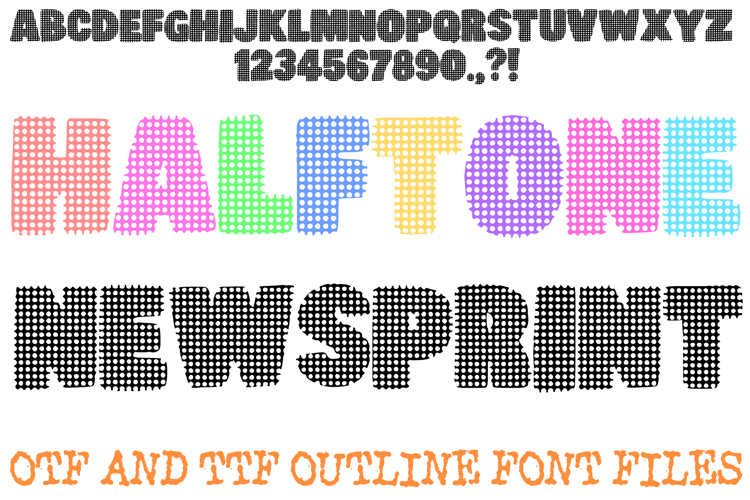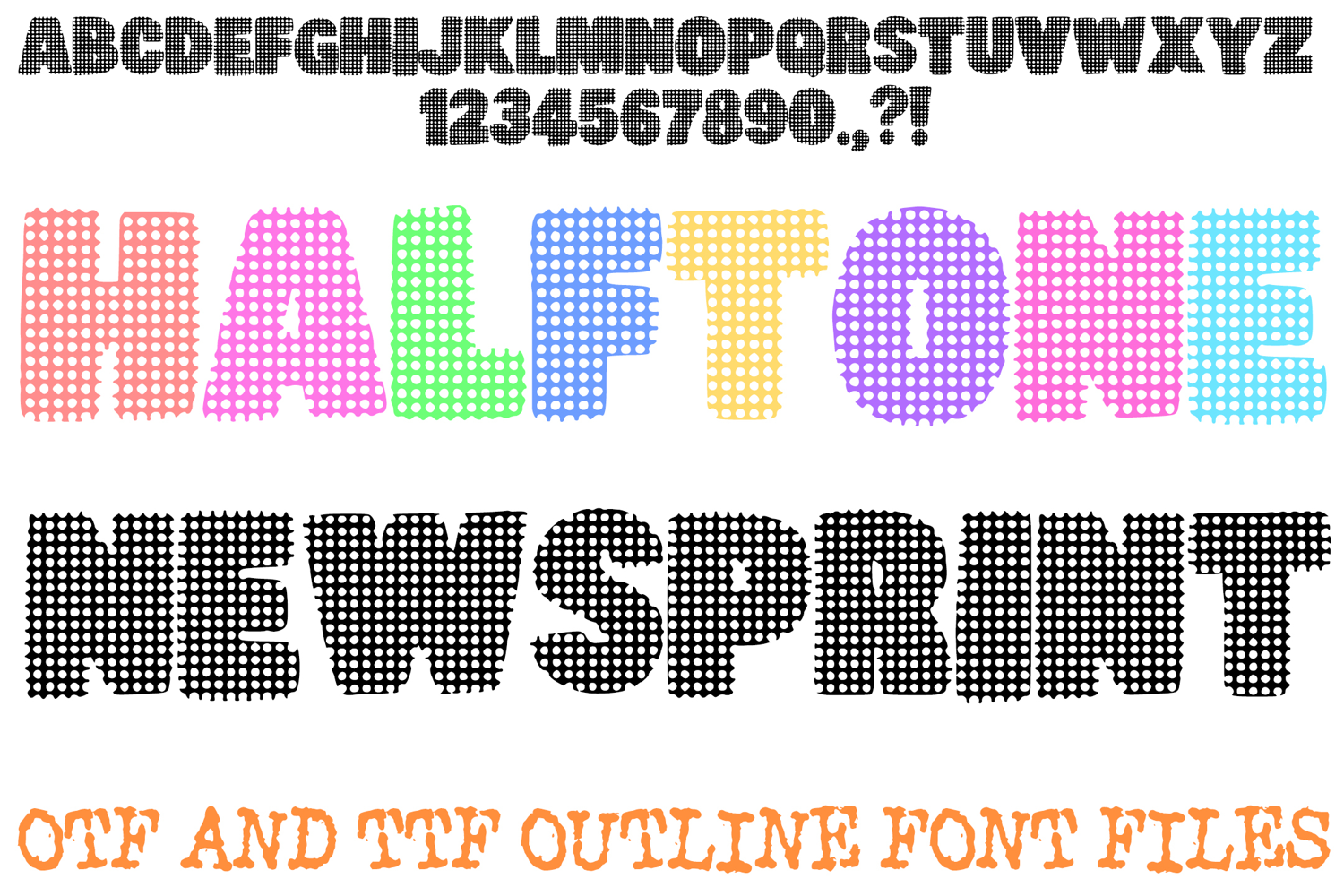
Bring the classic texture of mid-century printing to your digital canvas with the Halftone Newsprint Font! This bold display alphabet features heavy, blocky silhouettes filled with a dense and uniform grid of circular dots, perfectly mimicking the iconic Ben-Day dot style of vintage comic books and newspaper advertisements. It is an ideal choice for high-impact headers, retro posters, pop-art branding, and gritty urban graphics.
The consistent halftone pattern provides a unique visual depth, giving your text a tactile, ink-on-paper feel that stands out against flat backgrounds. Whether you are creating a superhero-themed graphic novel, a nostalgic zine, or a vibrant social media campaign, the Halftone Newsprint Font delivers an authentic vintage punch to every design.
Authentic Halftone Texture: Each character is filled with a precise, high-contrast dot grid for a genuine screen-printed look.
Bold Visibility: The thick, sturdy letterforms ensure your message remains legible even with the intricate internal pattern.
Nostalgic Appeal: Captures the "newsprint" aesthetic favored by 1960s artists and classic comic book letterers.